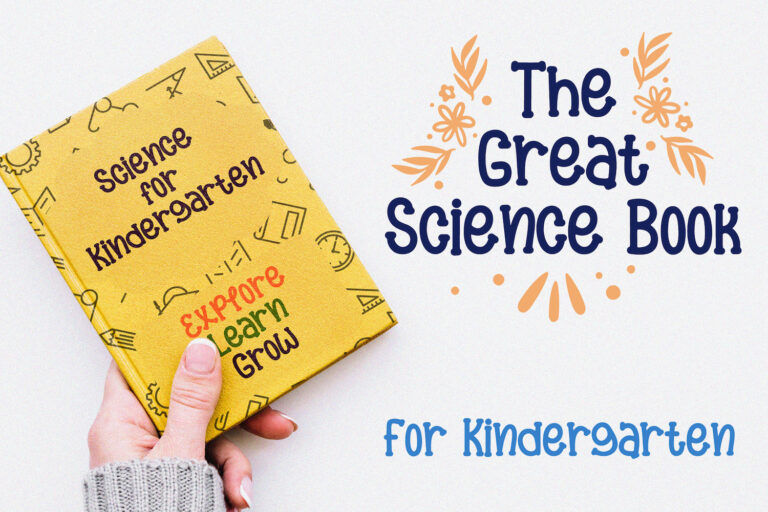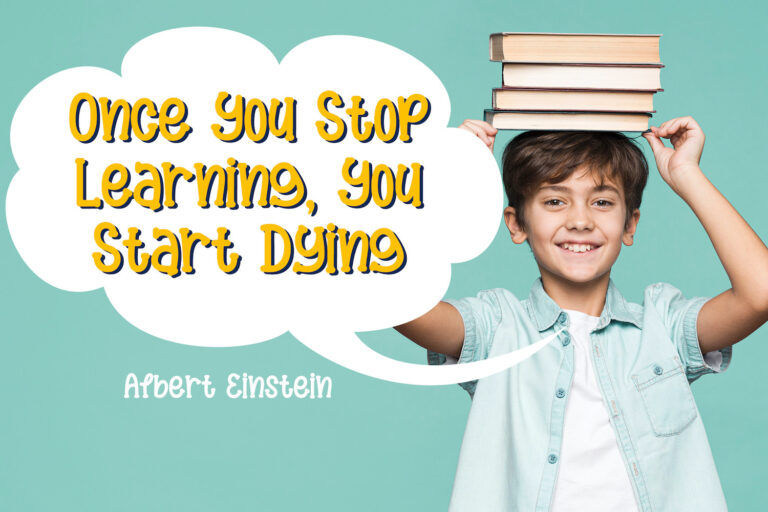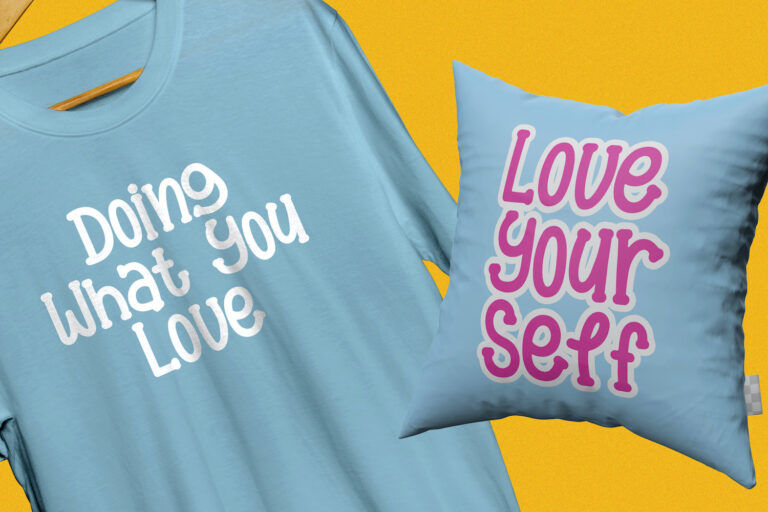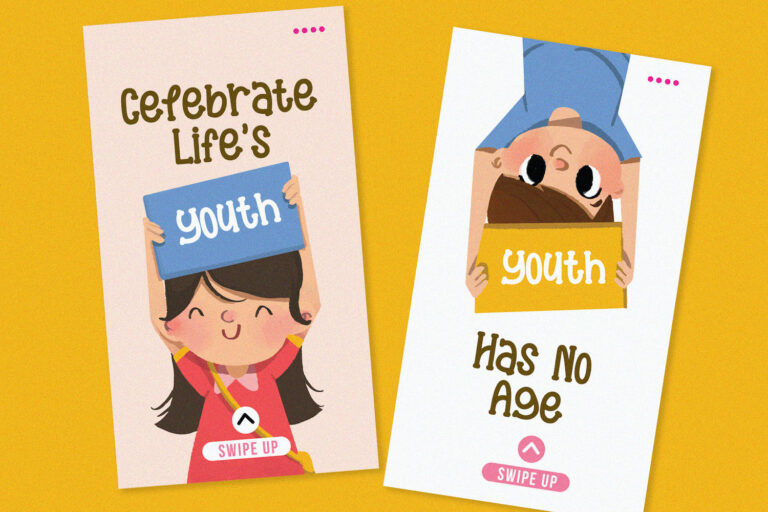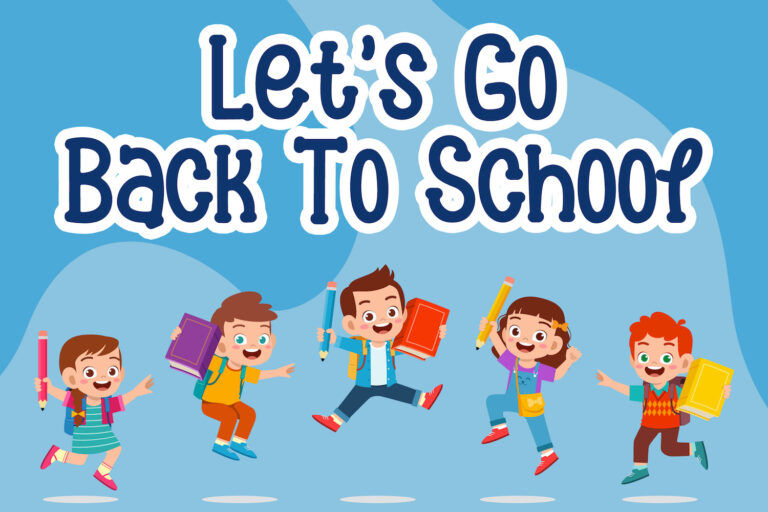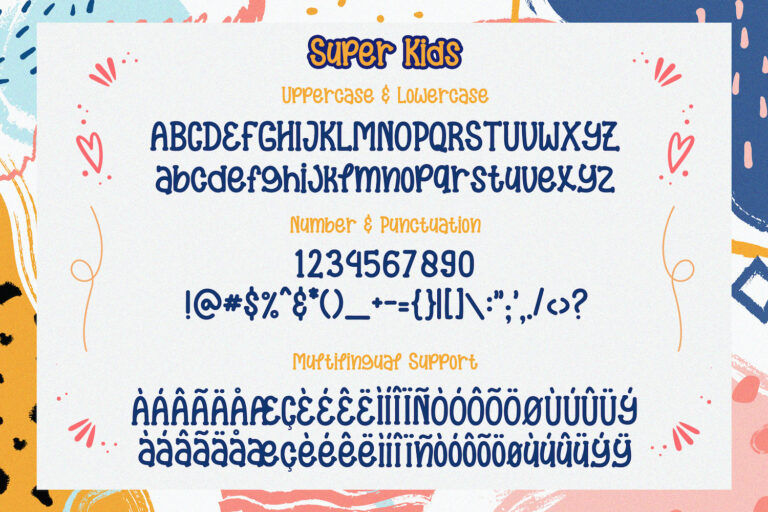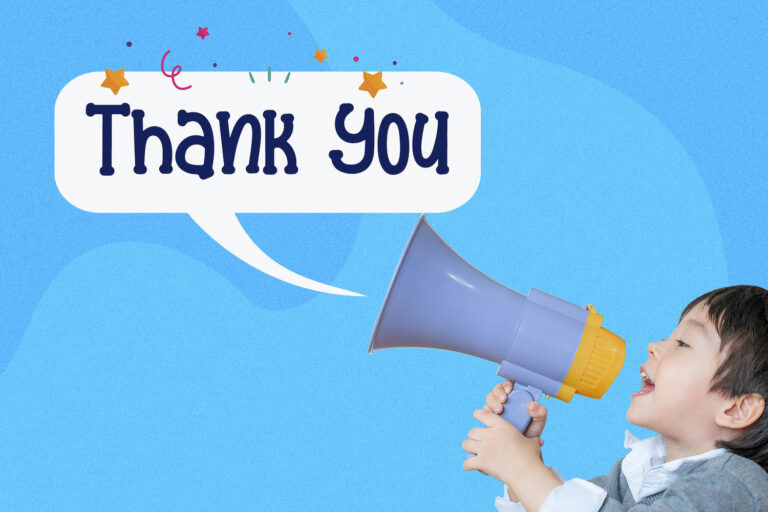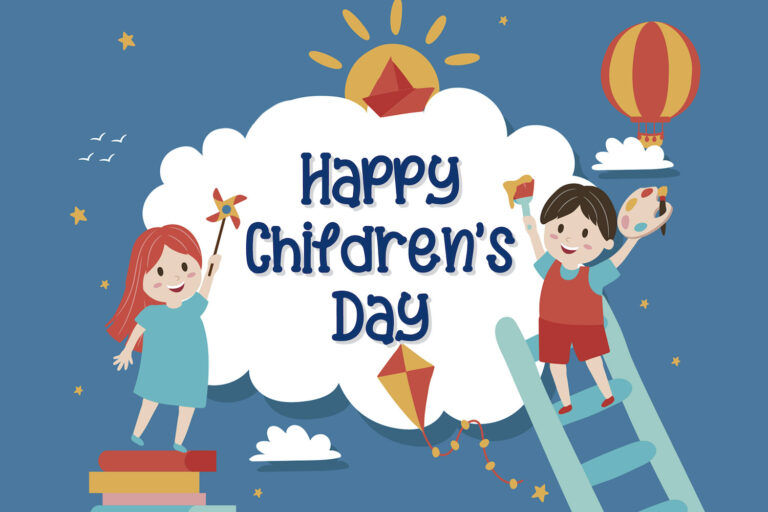
Super Kids Playful Display Font brings an energetic and joyful vibe to every letter it forms. With bubbly curves, quirky rhythm, and a perfectly imperfect hand-crafted feel, this display font is a delightful choice for children-oriented designs. The wide, rounded characters maintain excellent readability, even at smaller sizes, while their whimsical flair keeps the mood light and engaging. Super Kids is clearly designed with young audiences in mind—it shines in educational posters, classroom materials, playful branding, birthday invitations, and storybook covers.
Beyond its visual charm, Super Kids Playful Display Font includes multilingual support and a full range of punctuation, making it as versatile as it is expressive. The font captures the spirit of early learning and creativity, ideal for projects that want to feel fun, safe, and inclusive. Whether you're designing a school event banner, a kids' app interface, or a back-to-school campaign, Super Kids will instantly inject warmth and playfulness into your typography.